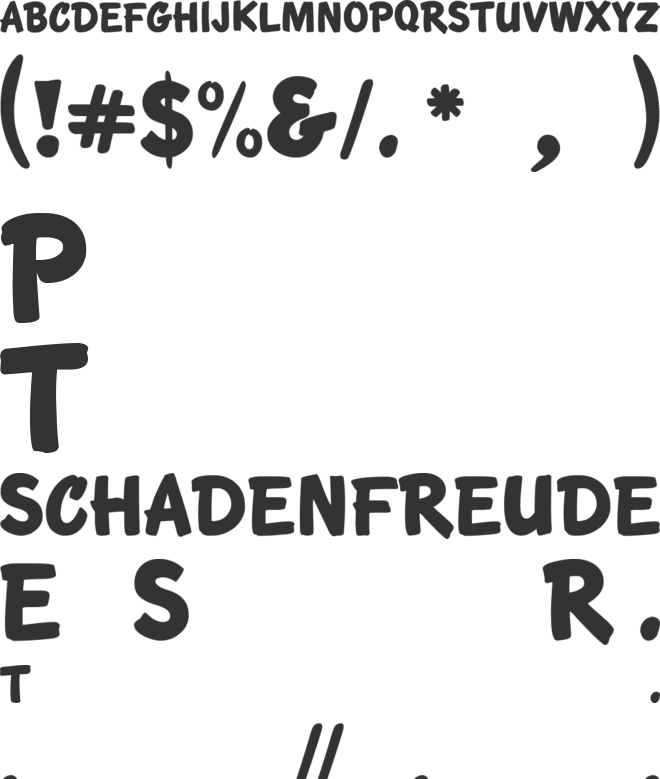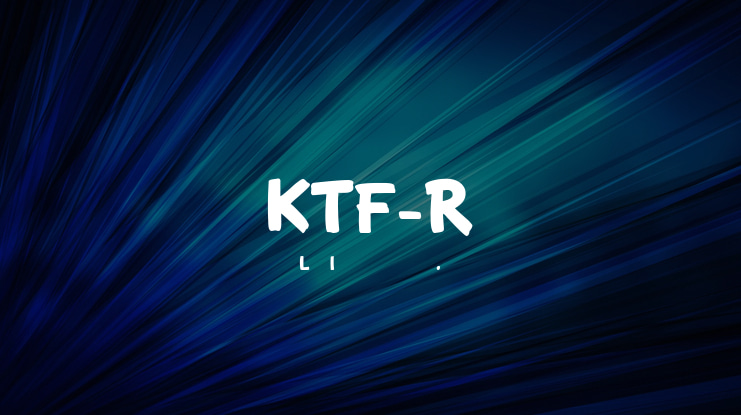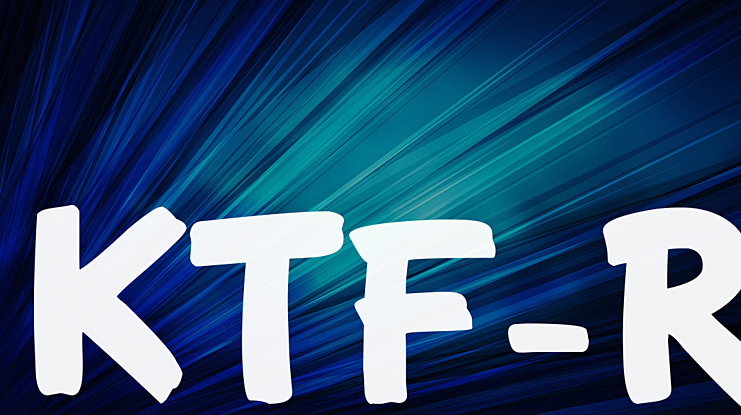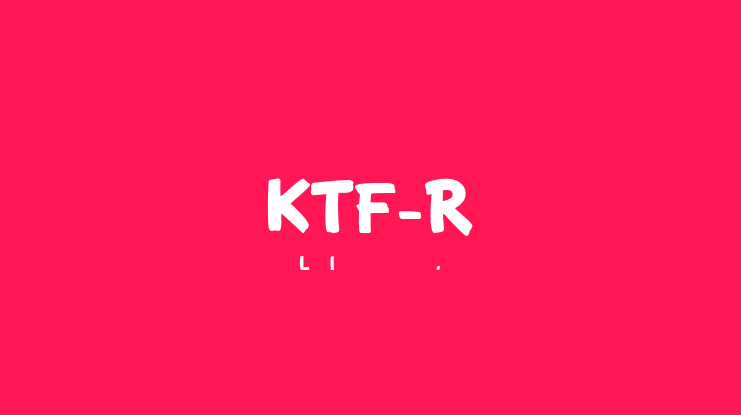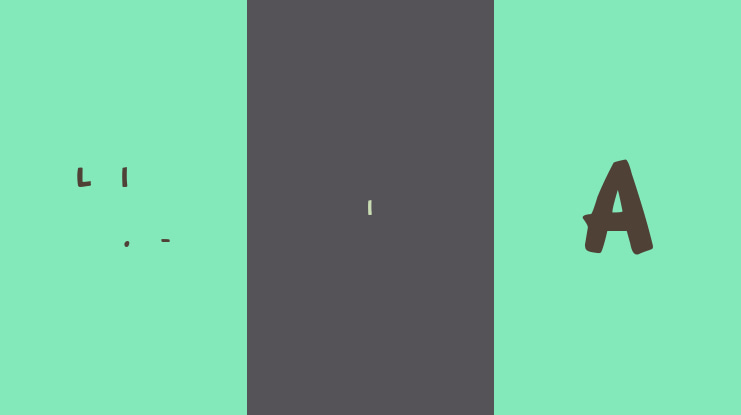
KTF-Roadbrush Font
Roadbrush was inspired by the mid-20th-century hand lettering of Albert Eckhardt, Jr., that I found in a 1950’s sign painting book. Roadbrush is a retro brush-style script that I re-designed and completely re-mastered. Roadbrush is a powerful font that can be used for logotype, packaging, posters, T-shirts, signage & design projects with a retro & vintage feel.Roadbrush comes with four styles that contain all upper and lower case characters, punctuation, numerals and mathematical operators, as well as all accented characters.NOTE: This font is for PERSONAL USE ONLY! Donations are very appreciated!To purchase a commercial license, visit: www.myfonts.com/fonts/kustomtype/roadbrushbrush/ (http://www.myfonts.com/fonts/kustomtype/roadbrushbrush/)